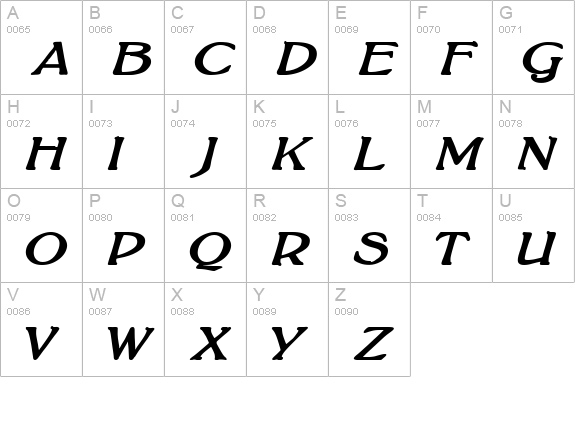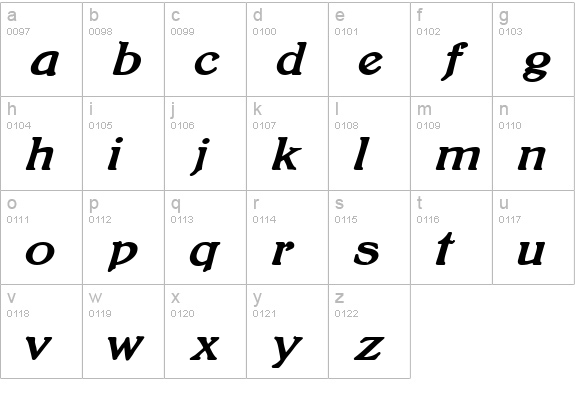
BoltonBoldItalic Font Details
Introducing BoltonBoldItalic, a visually striking and bold font that exudes elegance and sophistication. This unique typeface boasts a perfect balance of thick strokes and elegant italics, making it ideal for adding a touch of modern flair to any project. The BoltonBoldItalic font is perfect for creating eye-catching headlines, branding materials, packaging designs, and more. What makes BoltonBoldItalic even more appealing is that it is available for free download at FontsMarket.com. This means that you can easily access this stunning font and incorporate it into your creative projects without any hassle. Whether you're a designer looking to make a statement or a business owner wanting to elevate your branding, BoltonBoldItalic is the perfect choice for adding a touch of bold sophistication. Download it today and unleash your creativity with this striking and stylish font!